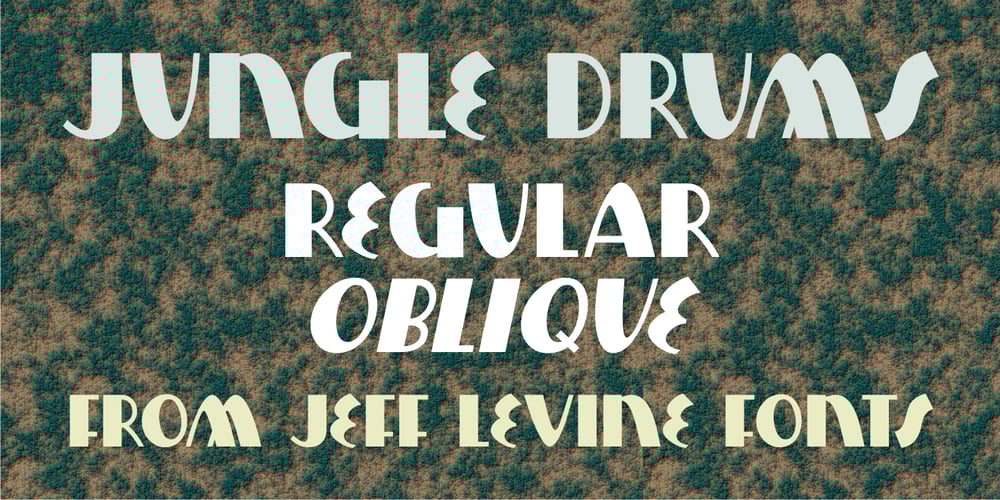
Jungle Drums JNL Font Family was designed by Jeff Levine and published by Jeff Levine. Jungle Drums JNL contains 2 styles and family package options. Jungle Drums JNL is based on the hand-lettered title on the 1929 sheet music of its musical namesake. A bold, free form design with a hint of the Art Deco movement of the coming decades, this casual typeface has the vintage charm to enrich many design projects. Jungle Drums JNL is available in both regular and oblique versions.